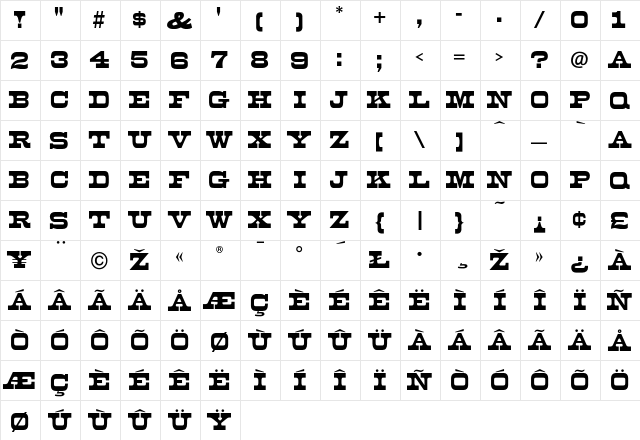
Mona Regular
| Foundry | Digitized by Dan X. Solo. Software Dover Publications, Inc |
Design Context for Mona Typeface
Mona offers clean, dependable letterforms without strong stylistic allegiance, making it a practical choice for designers who need flexibility.